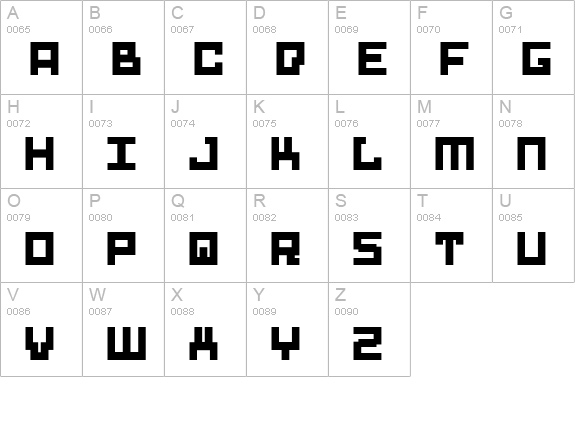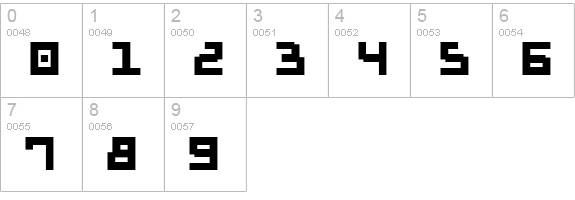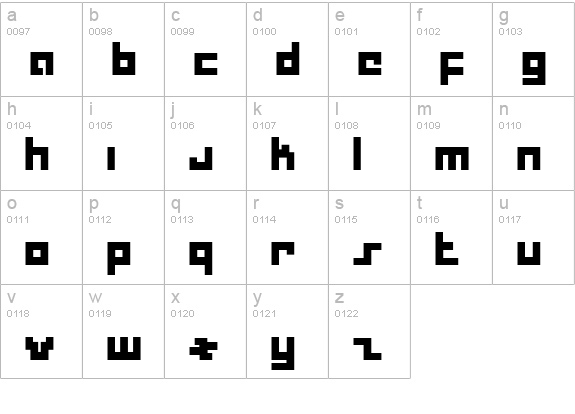
Drid Herder Solid Font Details
Drid Herder Solid font is a bold and eye-catching typeface that exudes strength and stability. Its solid and sturdy appearance makes it perfect for headlines, titles, and other attention-grabbing text. The thick, uniform strokes give this font a modern and edgy look, making it a popular choice for designers looking to make a statement. What sets Drid Herder Solid font apart is not just its striking design, but also the fact that it is available for free download at FontsMarket.com. This means that you can add this powerful and versatile font to your collection without any cost, making it a valuable resource for your design projects. Whether you're working on branding, advertising, posters, or any other creative endeavor, Drid Herder Solid font will help you make a bold impact. Download it for free today and unleash its potential in your next project.